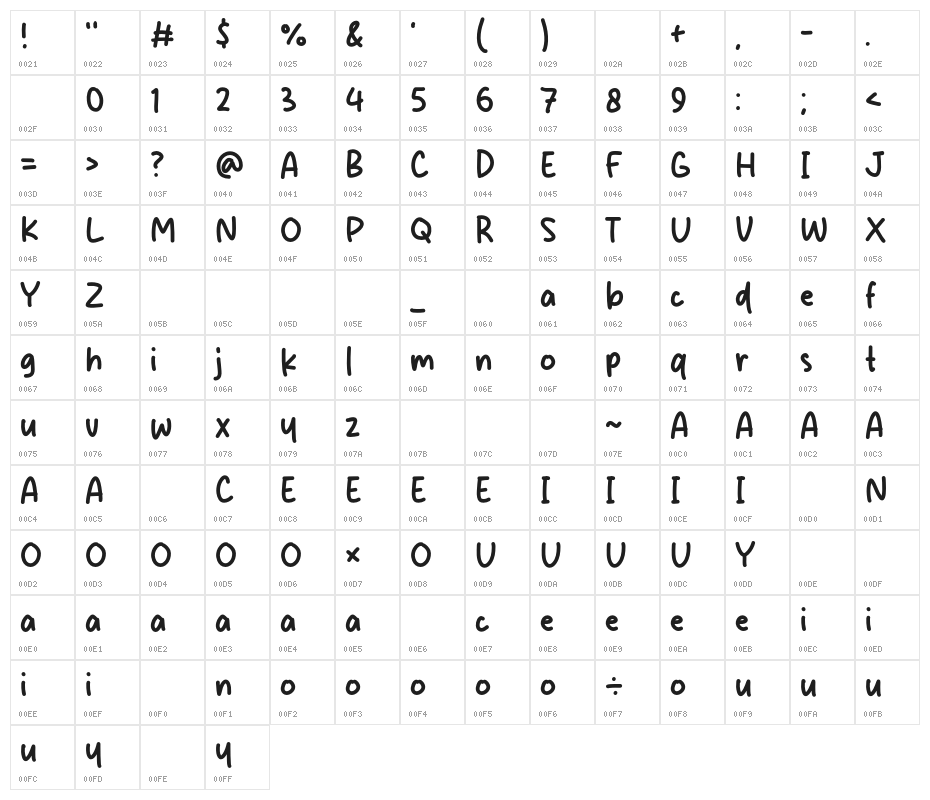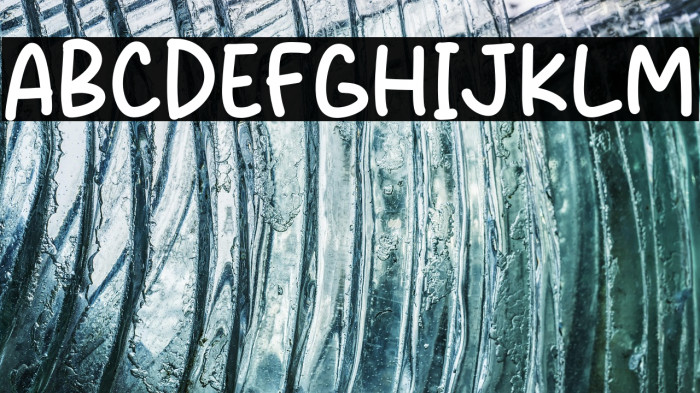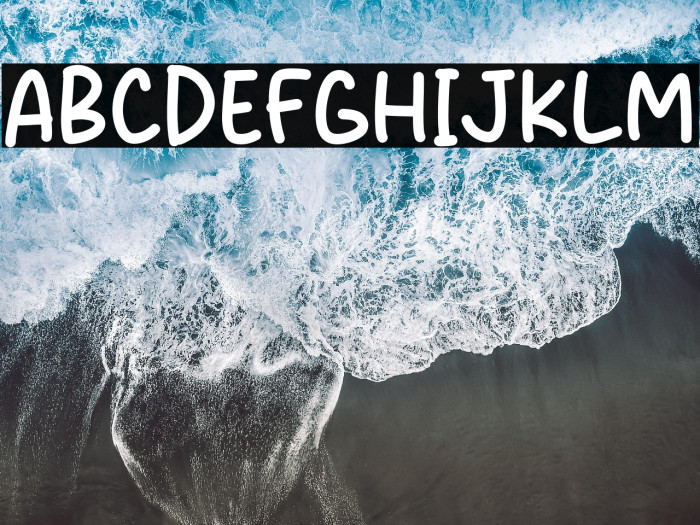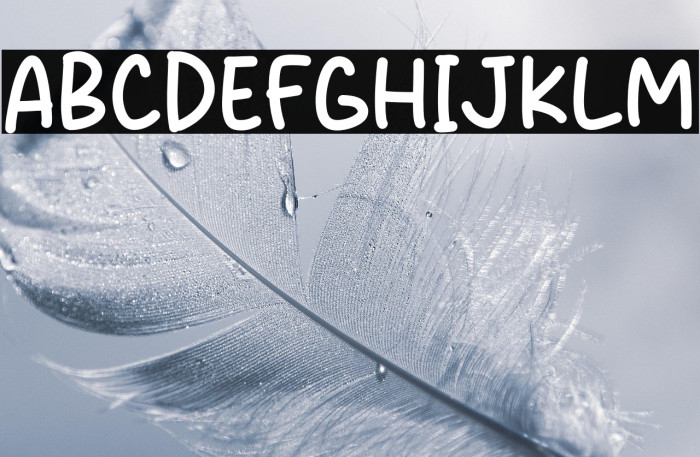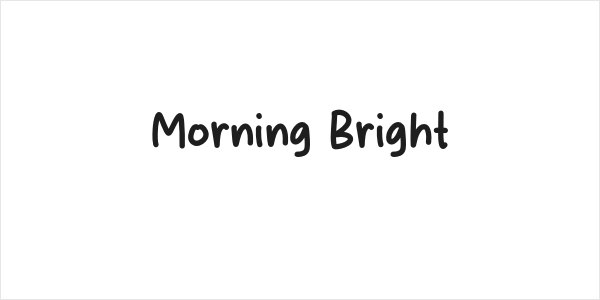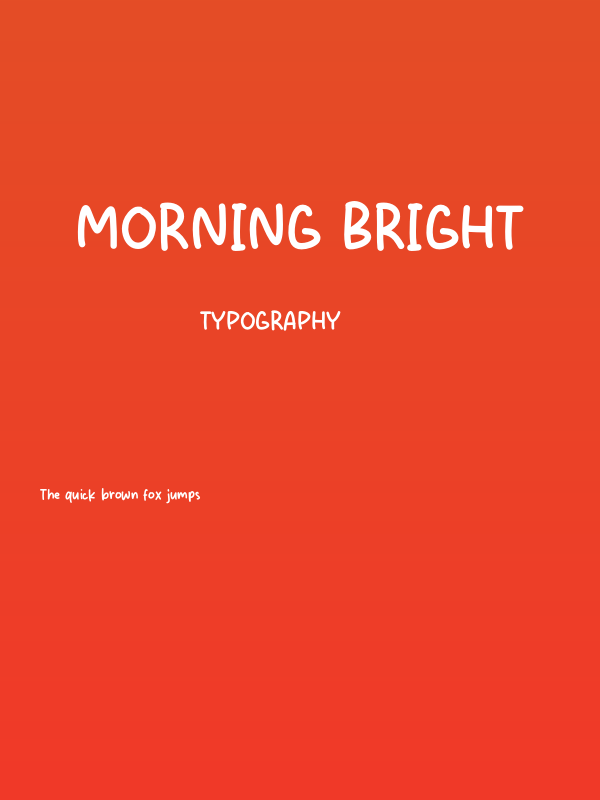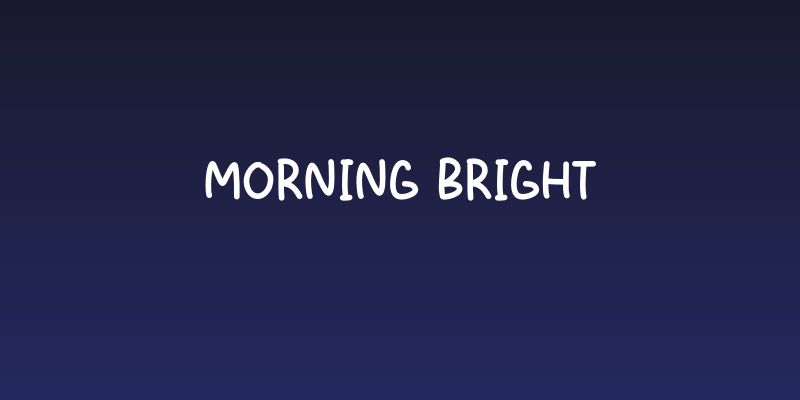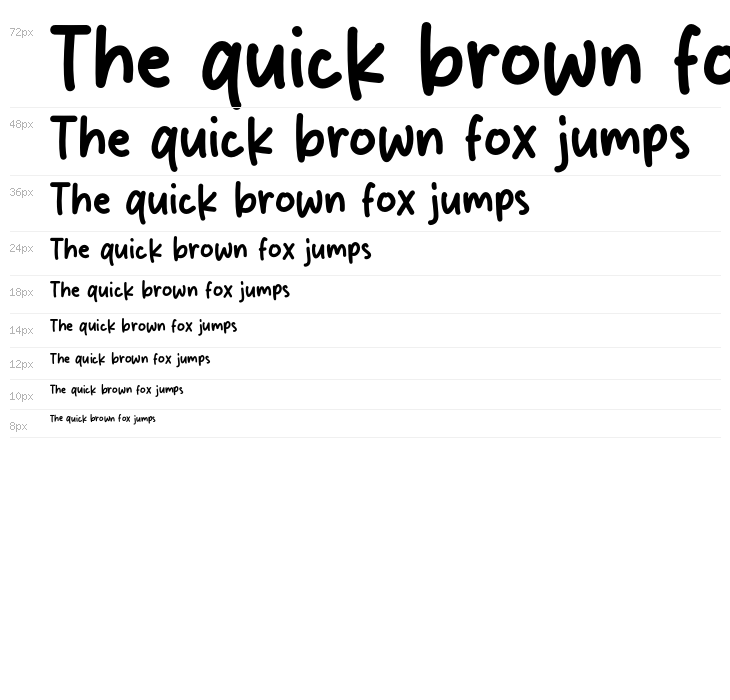
Morning Bright Font
Morning Bright Description
A playful, handwritten font with rounded edges and a casual style, suitable for informal and friendly designs.
| Proposed Projects | Greeting cards, children's books, casual branding. |